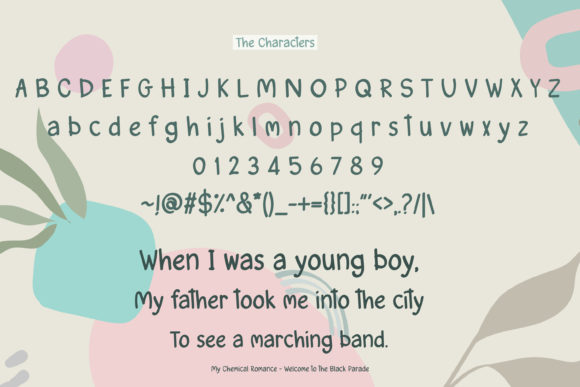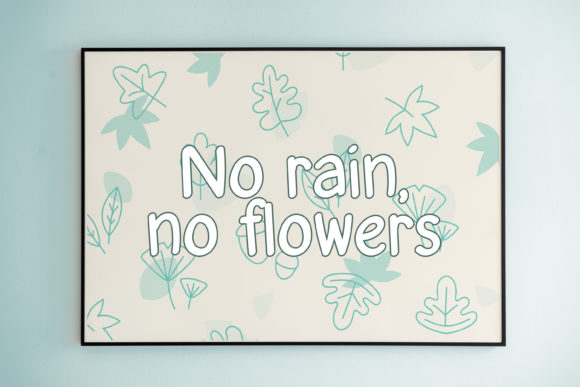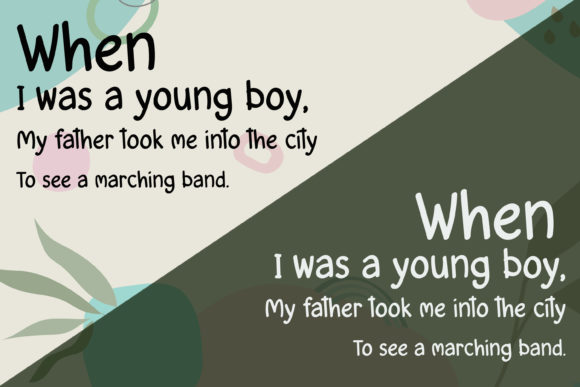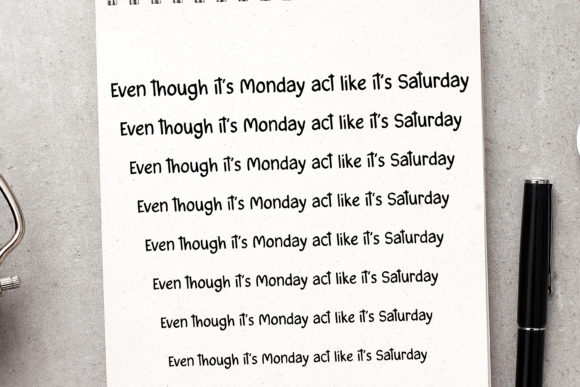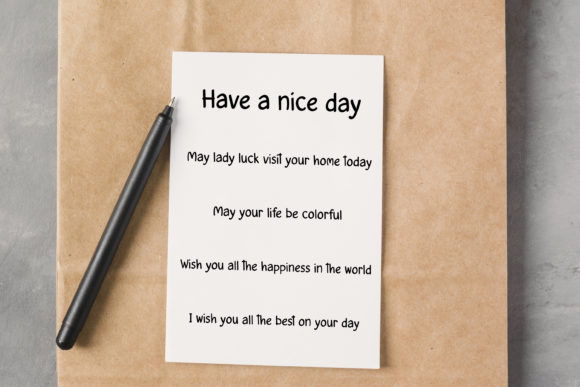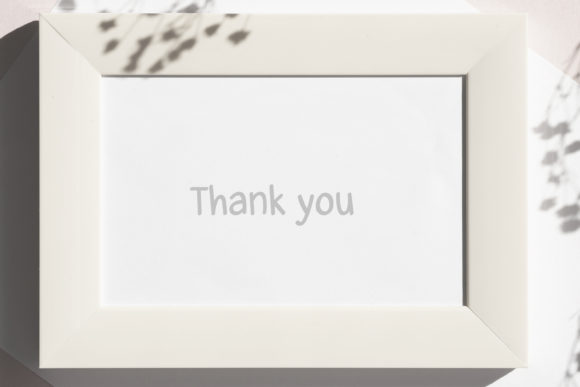
Aileen Font: The Ultimate Playful Handwritten Font for Designers and Crafters
Are you tired of using the same old fonts in your design projects? Do you want to add a touch of youthfulness and playfulness to your creations? Look no further than Aileen Font! This adorable handwritten font is perfect for designers and crafters who want to make their projects stand out from the crowd.
What is Aileen Font?
Aileen Font is a modern, handwritten font that exudes a sense of fun and playfulness. Its incredibly youthful feel makes it perfect for designs that require a fresh and energetic vibe. Whether you’re working on a branding project, a social media graphic, or a crafting project, Aileen Font is sure to bring a smile to your audience’s faces.
Characteristics of Aileen Font
So, what makes Aileen Font so special? Here are some of its key characteristics:
- Cute and Playful: Aileen Font is designed to be fun and playful, making it perfect for designs that require a lighthearted touch.
- Handwritten: This font is carefully crafted to mimic the look and feel of handwritten text, giving it a personal and authentic feel.
- Youthful: Aileen Font has an incredibly youthful feel that makes it perfect for designs targeting a younger audience.
- Versatile: This font can be used in a variety of design projects, from branding and advertising to crafting and DIY projects.
How to Use Aileen Font in Your Design Projects
Using Aileen Font in your design projects is easy! Here are some ideas to get you started:
- Branding: Use Aileen Font to create a fun and playful brand identity that will appeal to a younger audience.
- Social Media Graphics: Add a touch of personality to your social media graphics with Aileen Font.
- Crafting: Use Aileen Font to create adorable labels, tags, and other crafting projects.
- Party Decorations: Create fun and playful party decorations, such as banners and garlands, using Aileen Font.
Tips for Getting the Most Out of Aileen Font
Here are some tips for getting the most out of Aileen Font:
- Pair it with Other Fonts: Experiment with pairing Aileen Font with other fonts to create a unique and interesting look.
- Use it in Combination with Images: Use Aileen Font in combination with images to create a visually appealing design.
- Experiment with Colors: Don’t be afraid to experiment with different colors to find the perfect combination for your design.
- Keep it Simple: Don’t overcomplicate your design. Keep it simple and let Aileen Font do the talking.
In conclusion, Aileen Font is a versatile and playful handwritten font that is perfect for designers and crafters who want to add a touch of youthfulness to their projects. With its cute and playful characteristics, Aileen Font is sure to make any design project stand out from the crowd. So why not give it a try and see the difference it can make in your designs?
- What is Aileen Font? Aileen Font is a modern, handwritten font that exudes a sense of fun and playfulness.